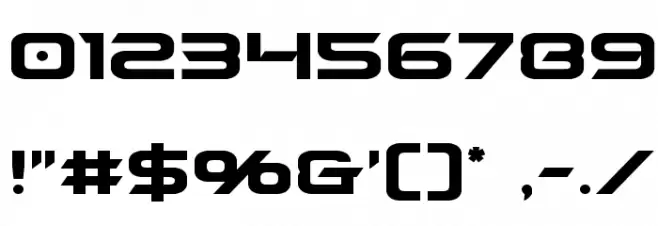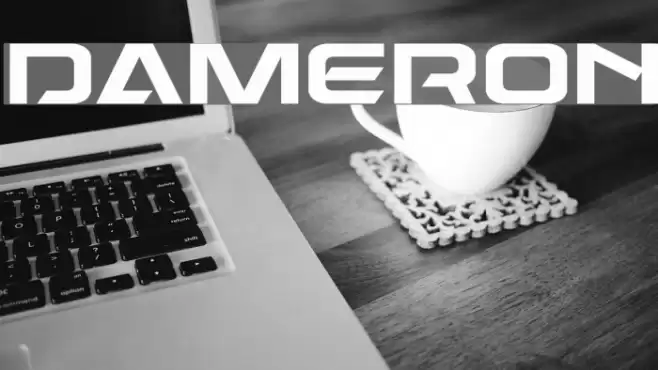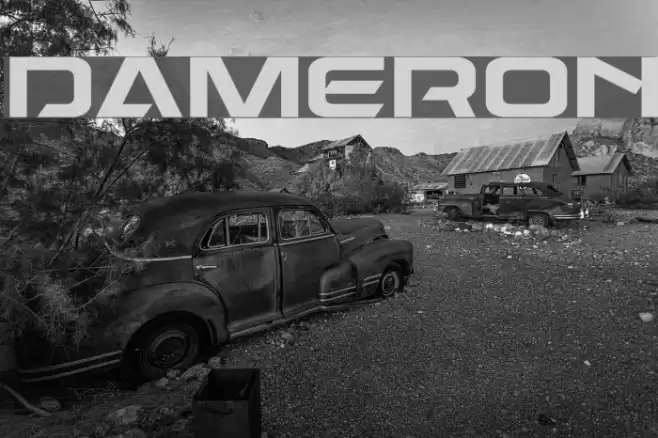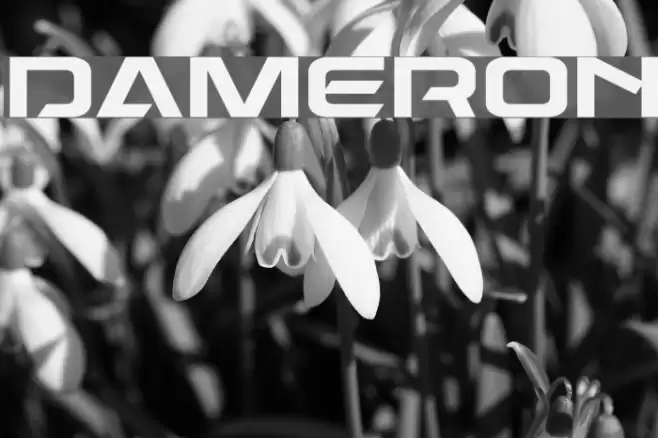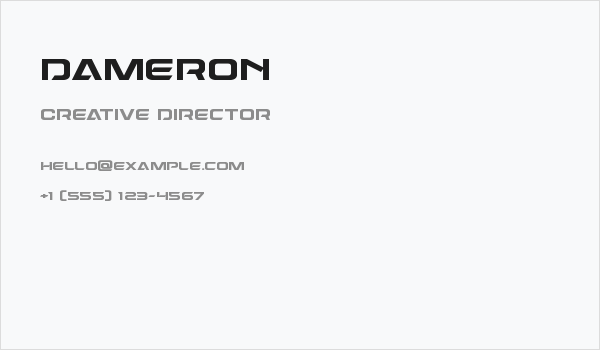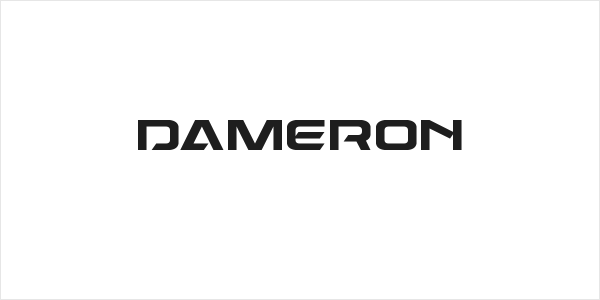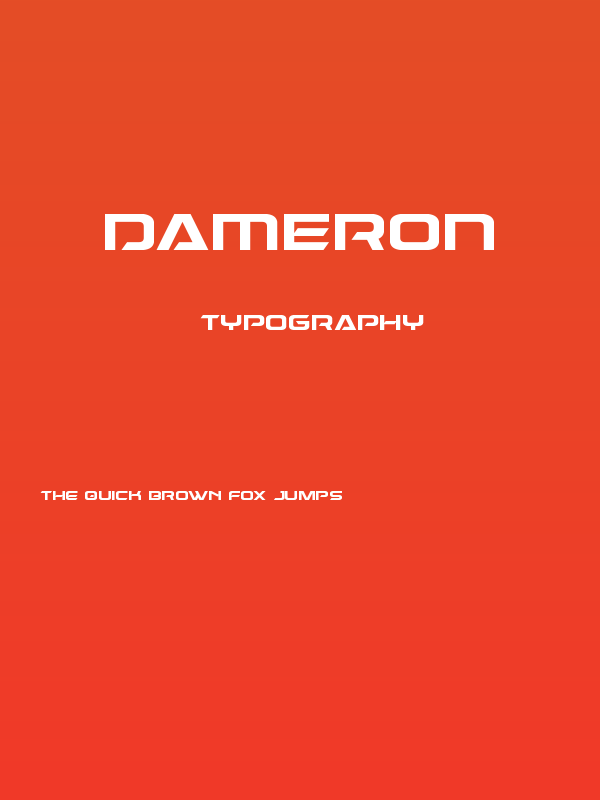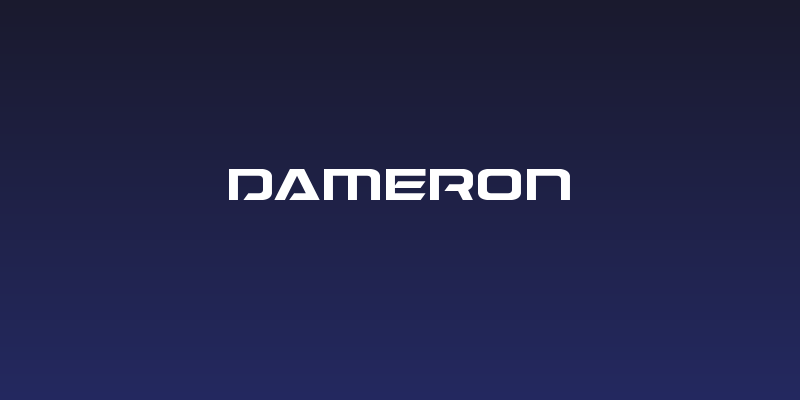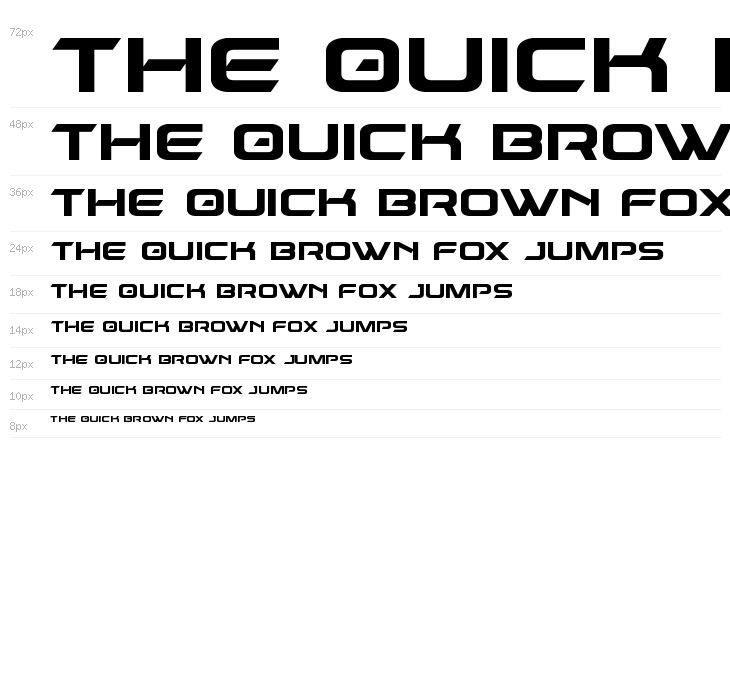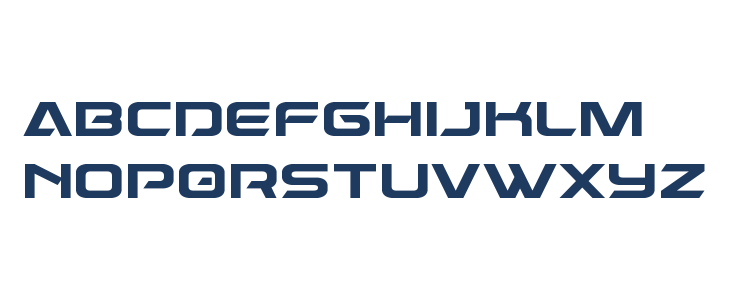
Dameron Font
Dameron Description
This font features a bold, futuristic design with geometric elements and sharp angles. The uppercase letters are distinct with a strong presence, while the lowercase letters maintain a consistent style that complements the uppercase. The numbers are equally bold, with a uniform width that ensures readability. Special characters are designed to match the overall aesthetic, making this font suitable for modern and tech-oriented projects. The consistent stroke width across all characters gives it a cohesive look, ideal for creating a strong visual impact.
Proposed ProjectsIdeal for technology branding, sci-fi posters, video game titles, and modern logos.